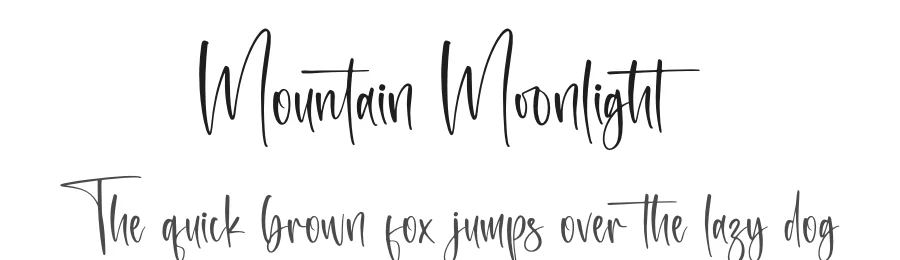
About Monttas Raillary Font
Monttas Raillary Specifications
| Font Family | Monttas Raillary |
| Full Name | Monttas Raillary |
| Glyph Count | 244 glyphs |
| PostScript Name | MonttasRaillary |
| Designer | Letternity |
Monttas Raillary ships with 1 OpenType feature you can switch on in apps that support them (Illustrator, InDesign, Affinity, Figma, CSS font-feature-settings).
Monttas Raillary supports 222 languages.
Monttas Raillary Font is a script font that shines as a display or heading face. Pair it with a clean sans-serif or serif font for body text β the contrast creates a clear hierarchy while the two styles stay balanced and easy to read.